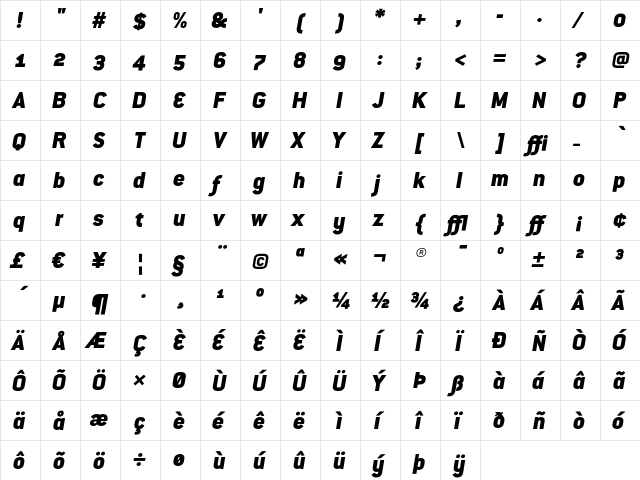
ConduitOSITC BlackItalic Font Preview
| Style | BlackItalic |
Design Context for ConduitOSITC Typeface
ConduitOSITC offers clean, dependable letterforms without strong stylistic allegiance, making it a practical choice for designers who need flexibility. Its italic angle brings a sense of urgency and motion to the letterforms. Its narrow stance lets it pack a punch even in space-constrained designs.
Pro Tip: Try ConduitOSITC for annotation and caption copy alongside an upright companion — the contrast in angle creates a dynamic but ordered typographic system.